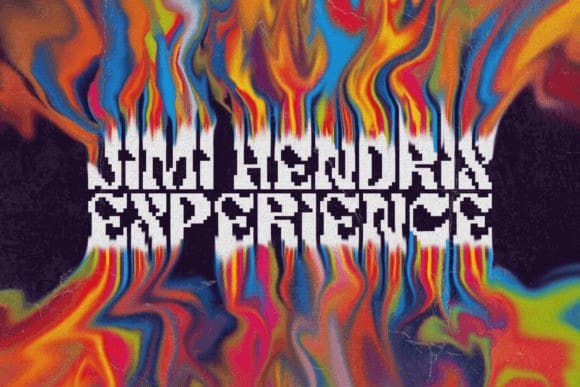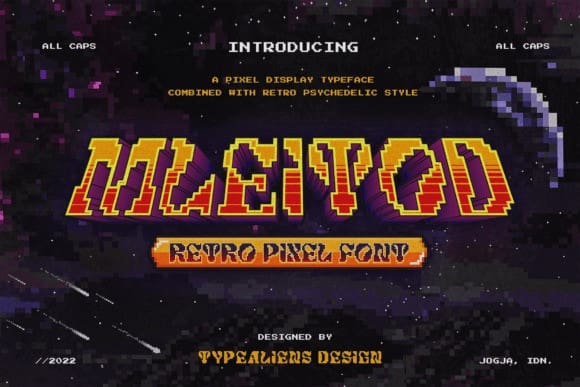
Mleitod Pixel Font
Mleitod Pixel Font is a fun, retro-pixel display font. Its unique style is perfect for game titles, displays, posters, or anything that requires a funky touch.